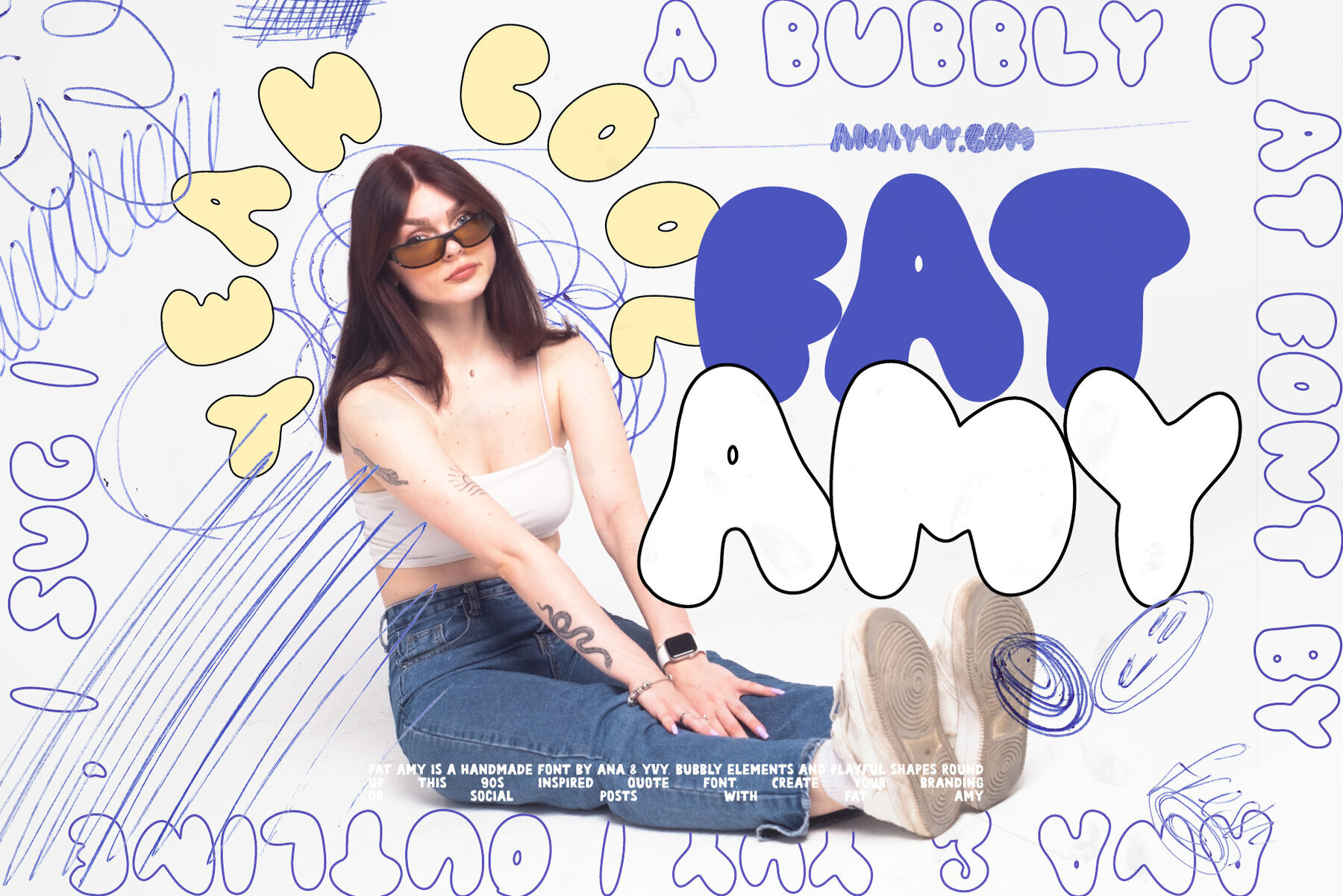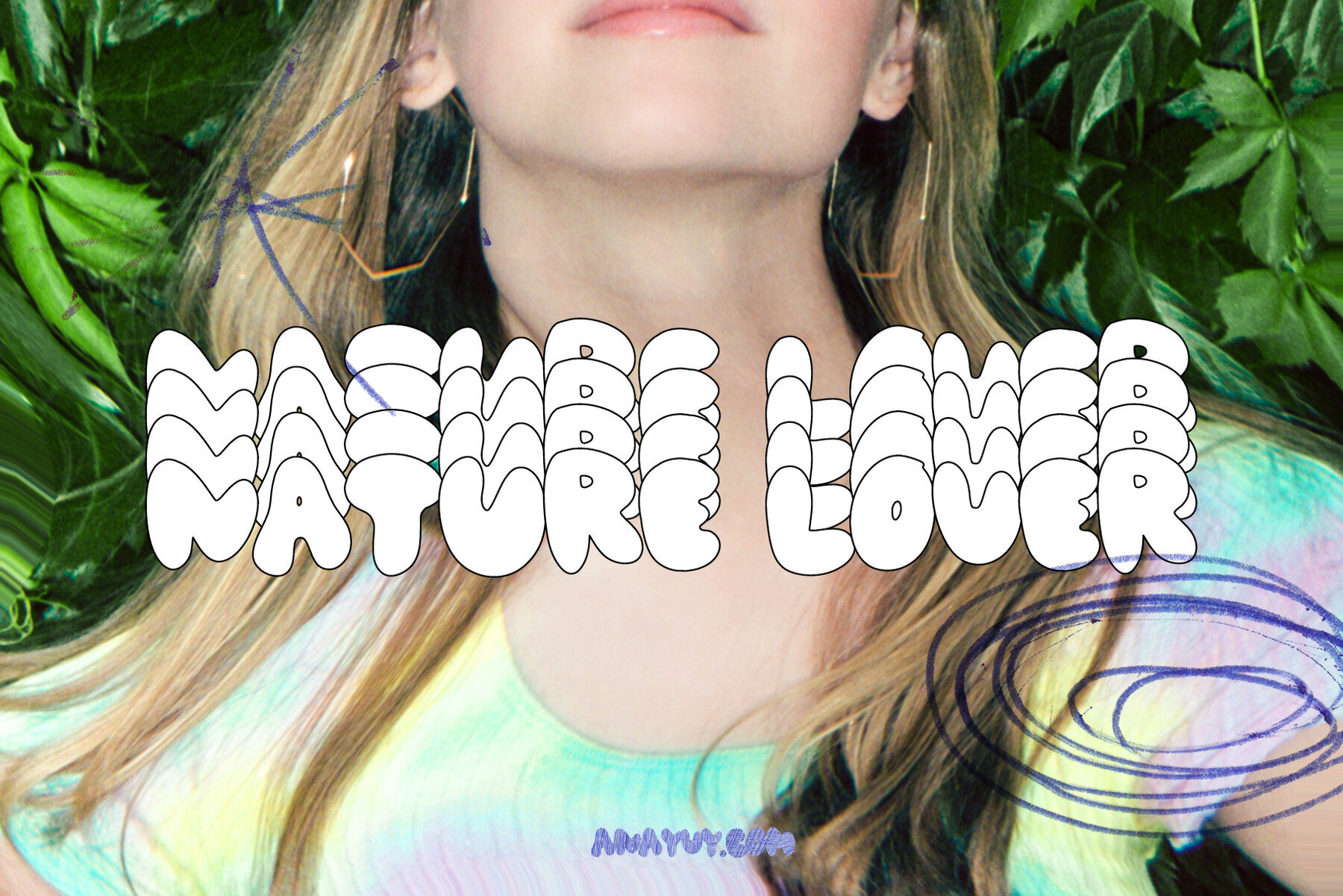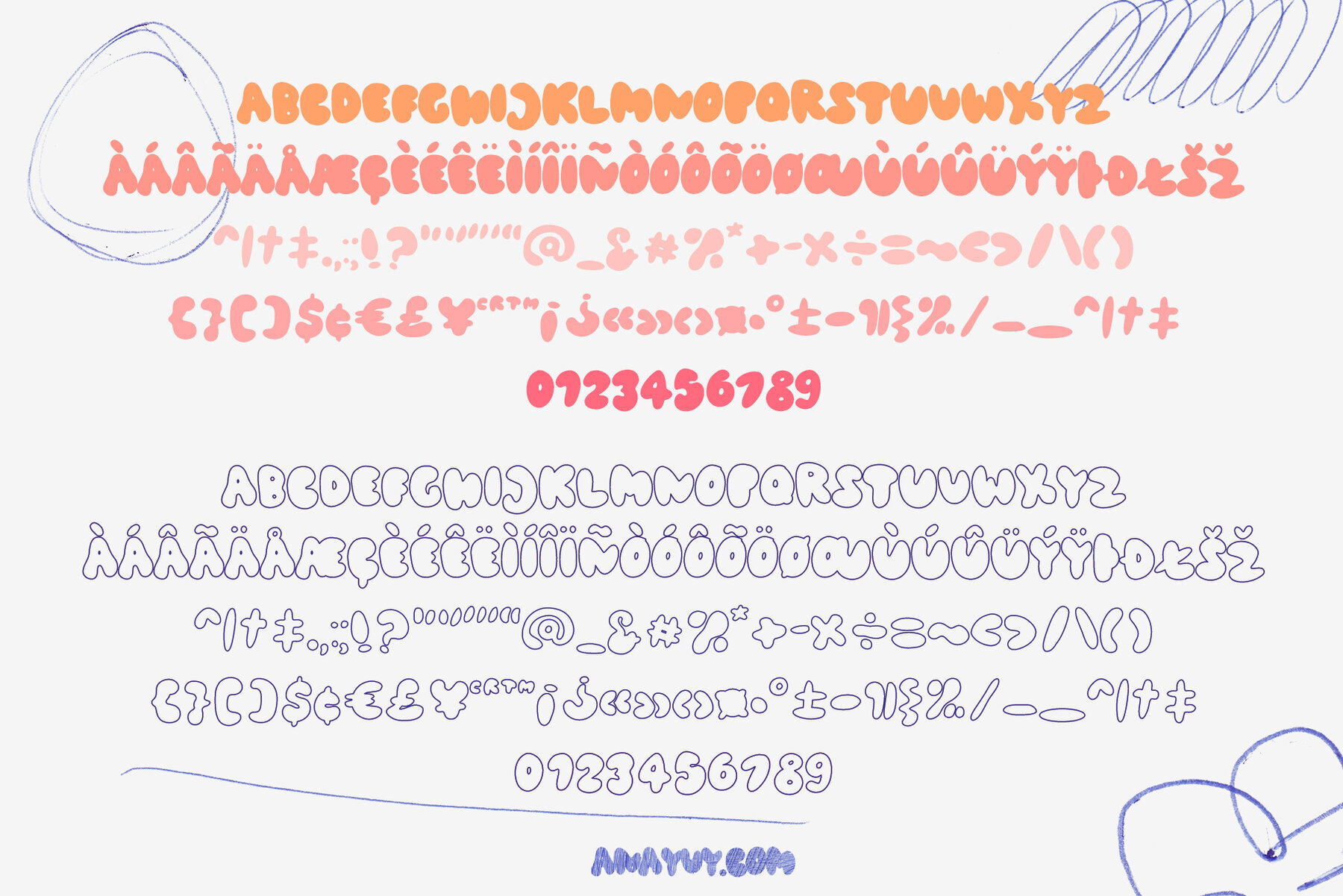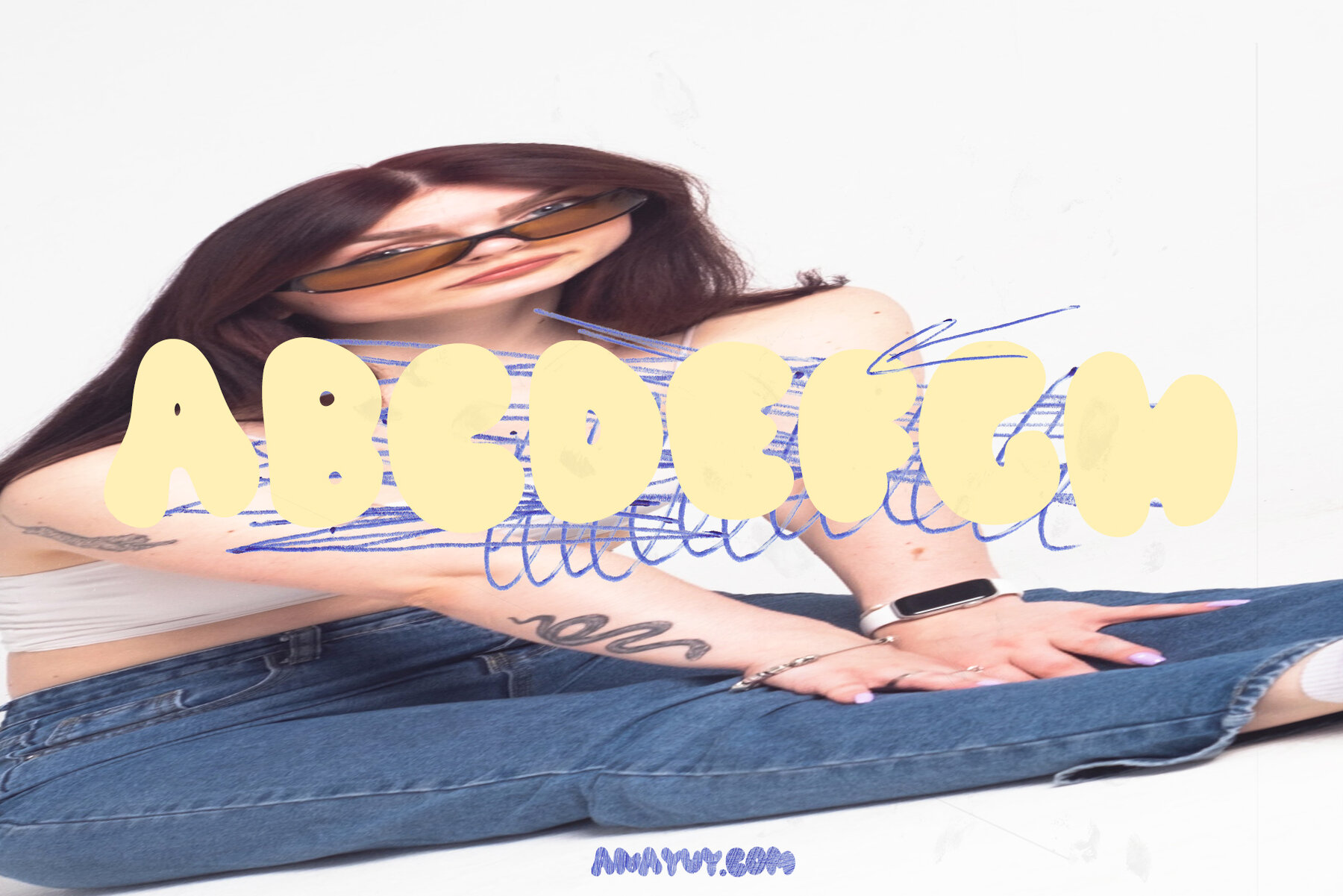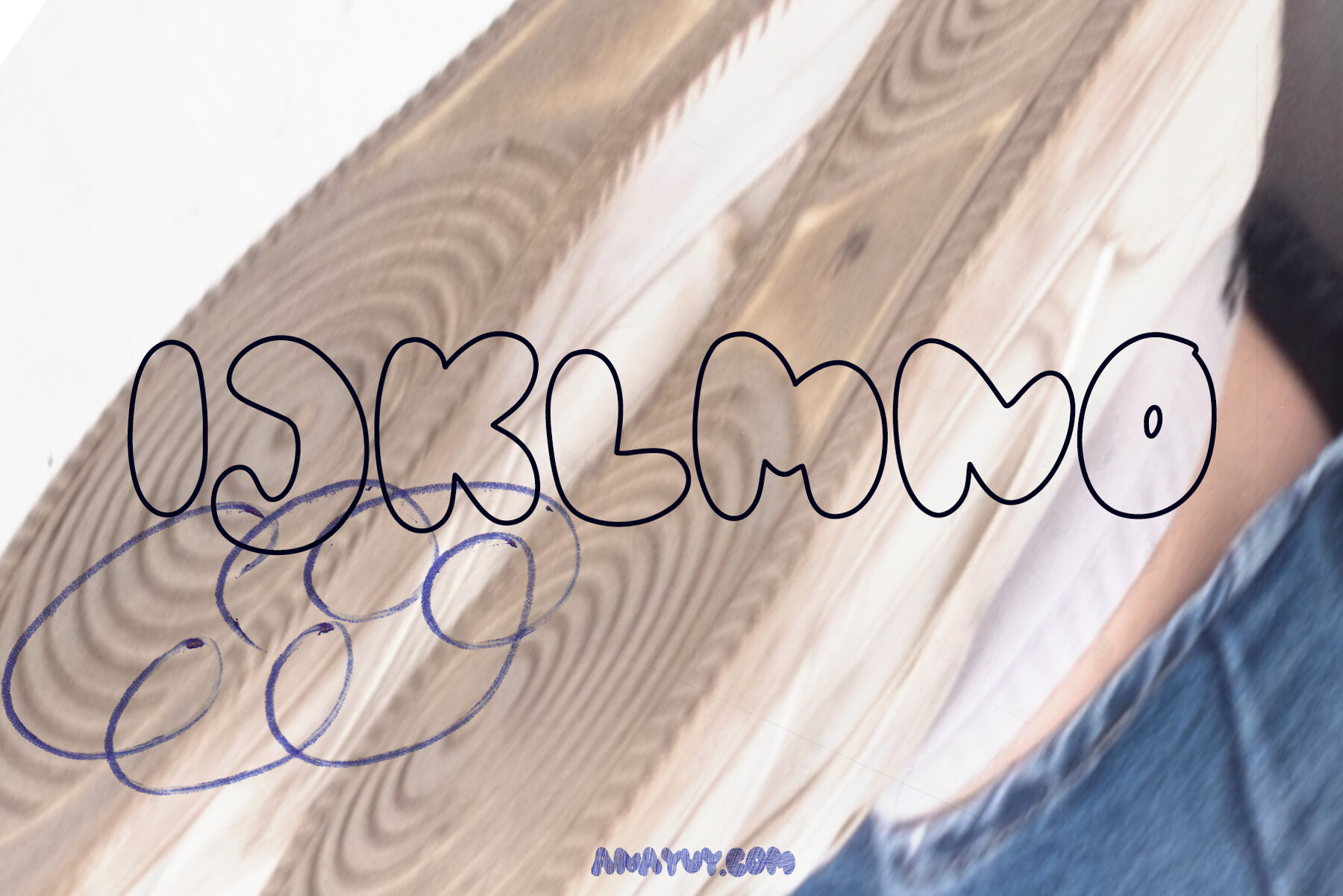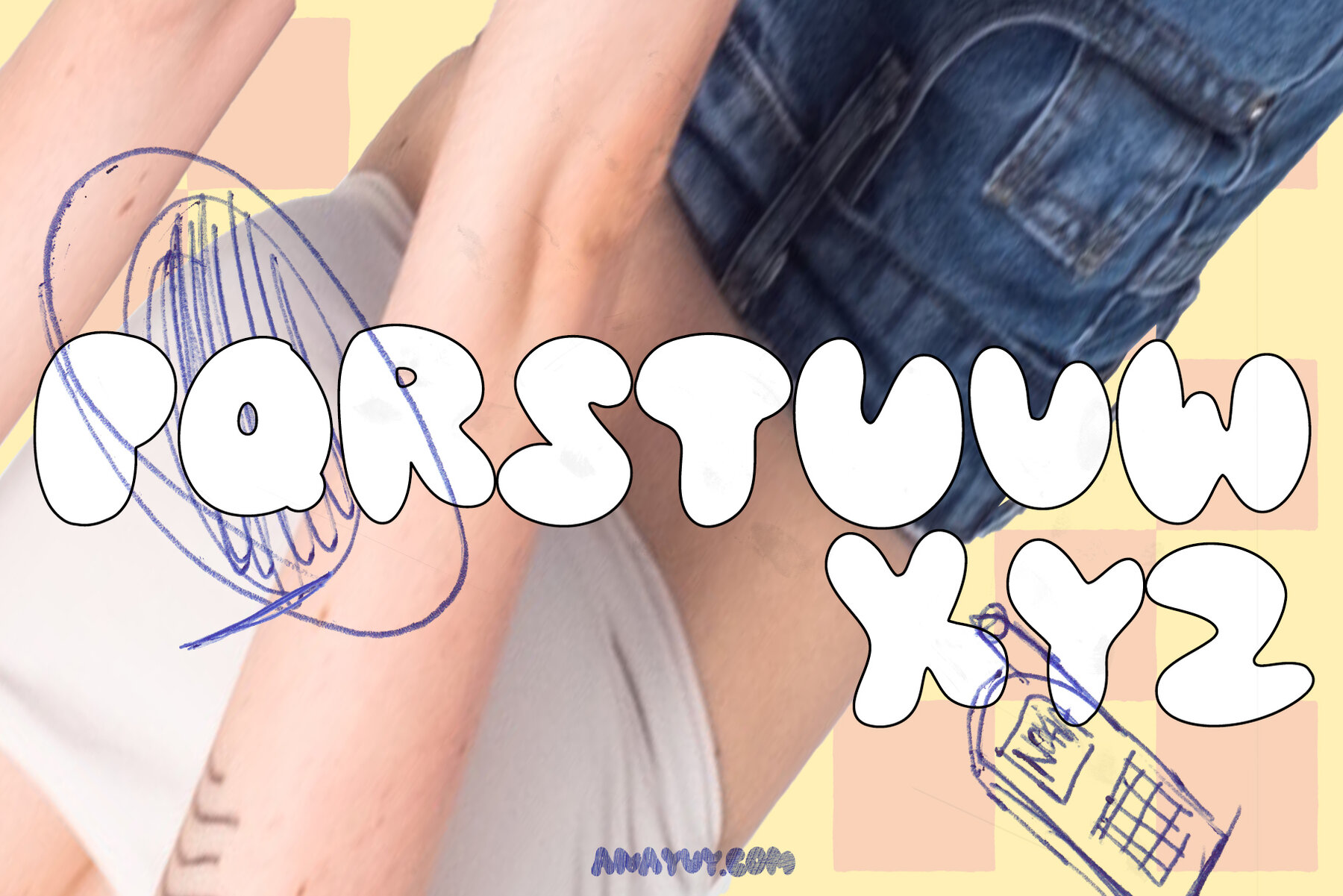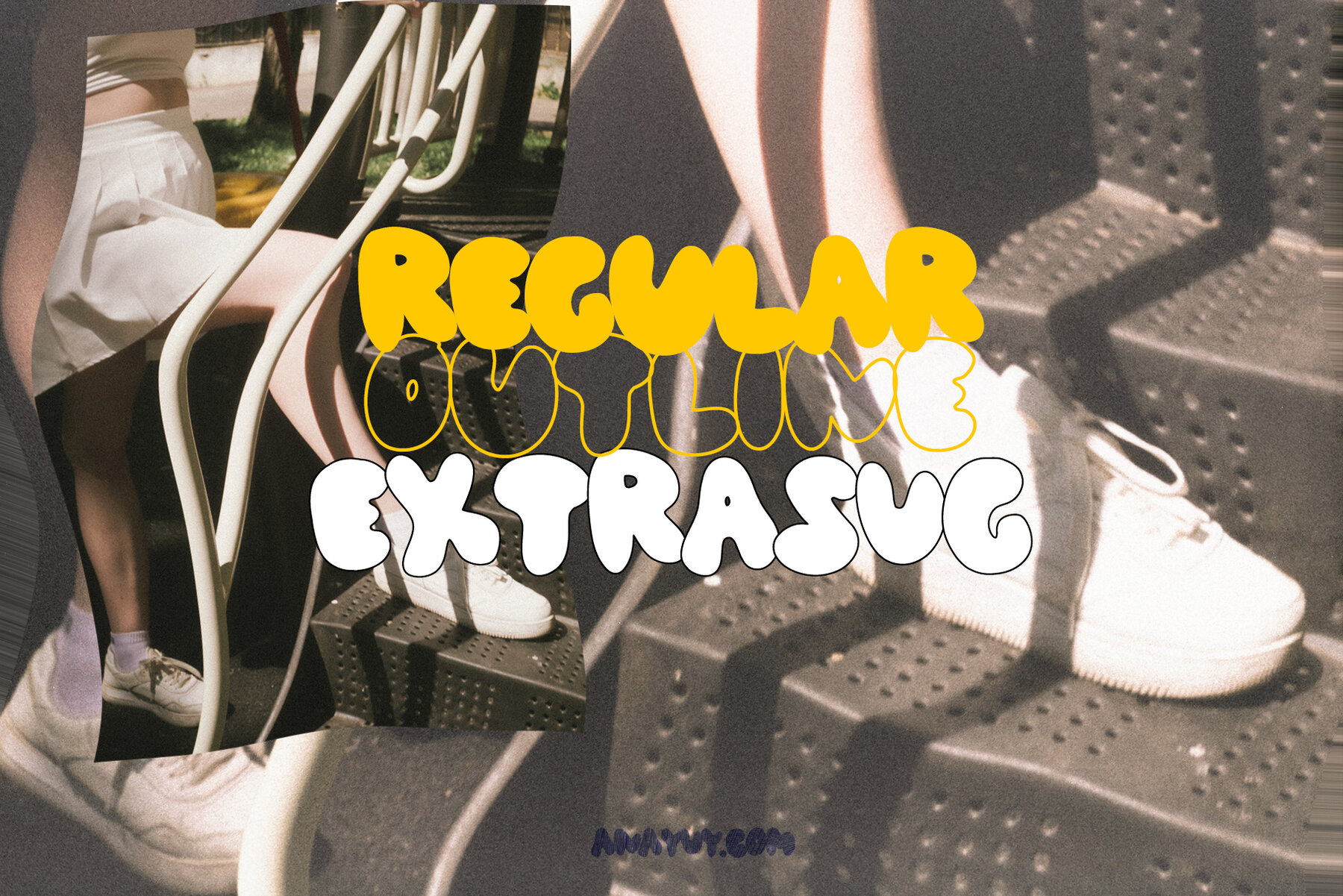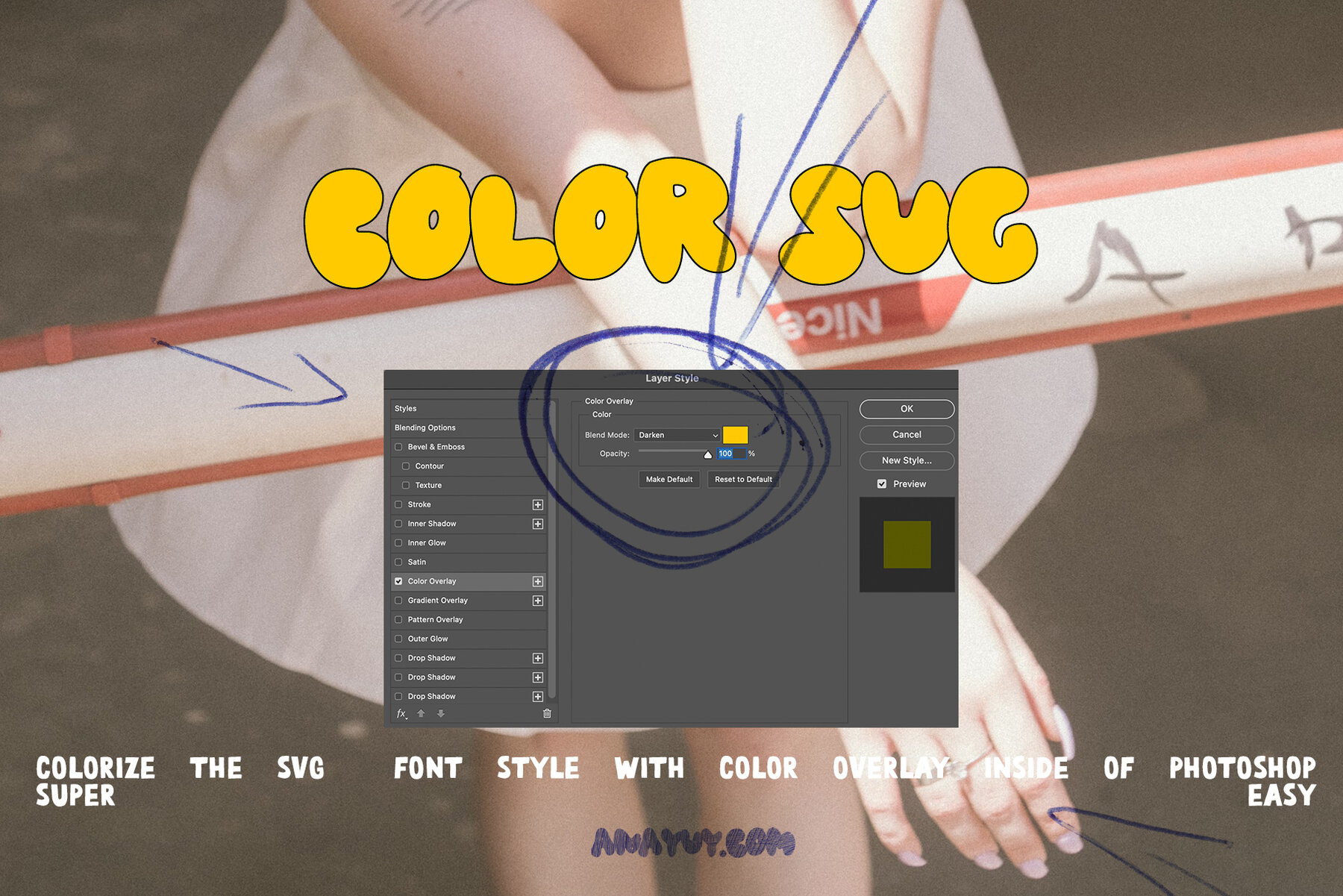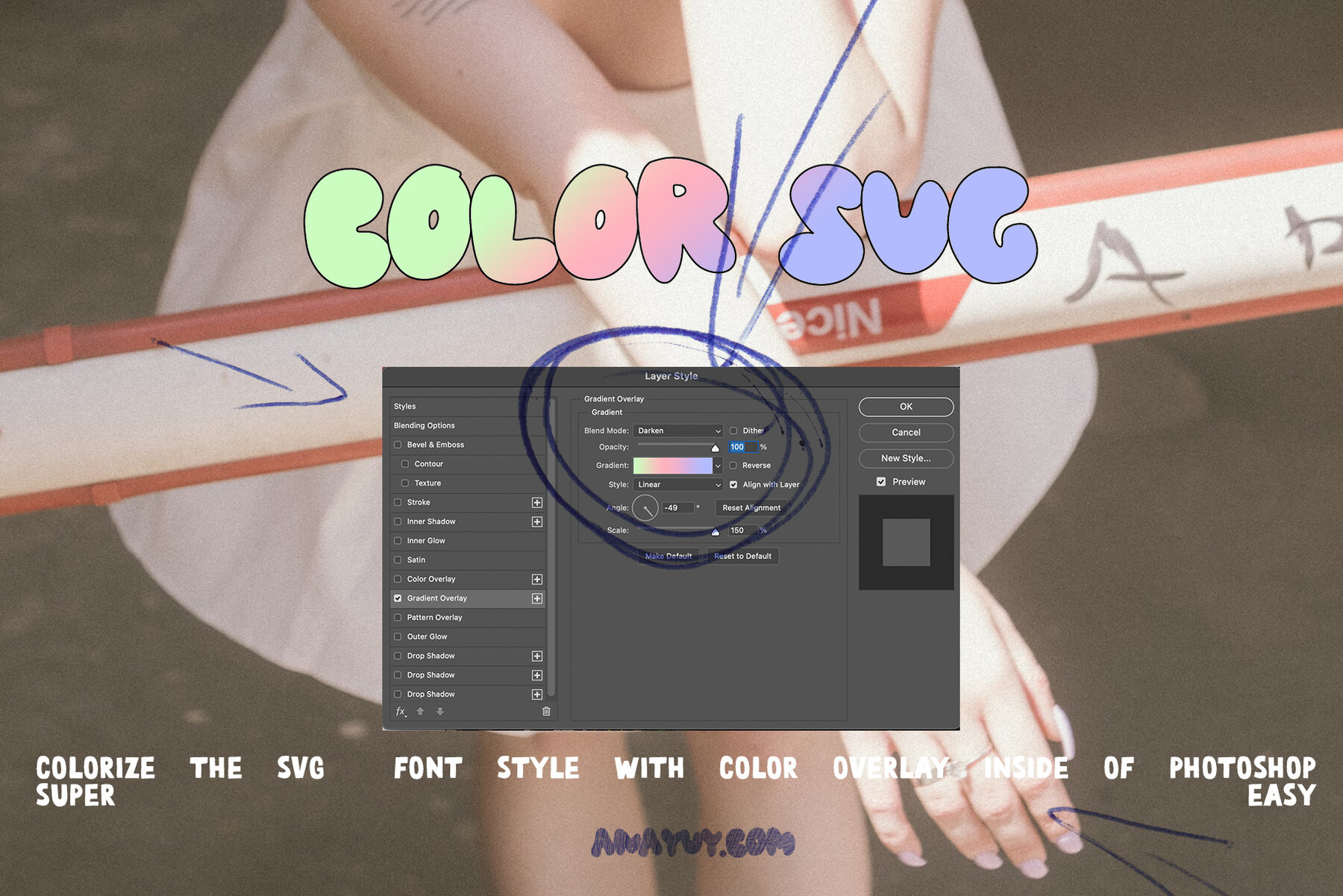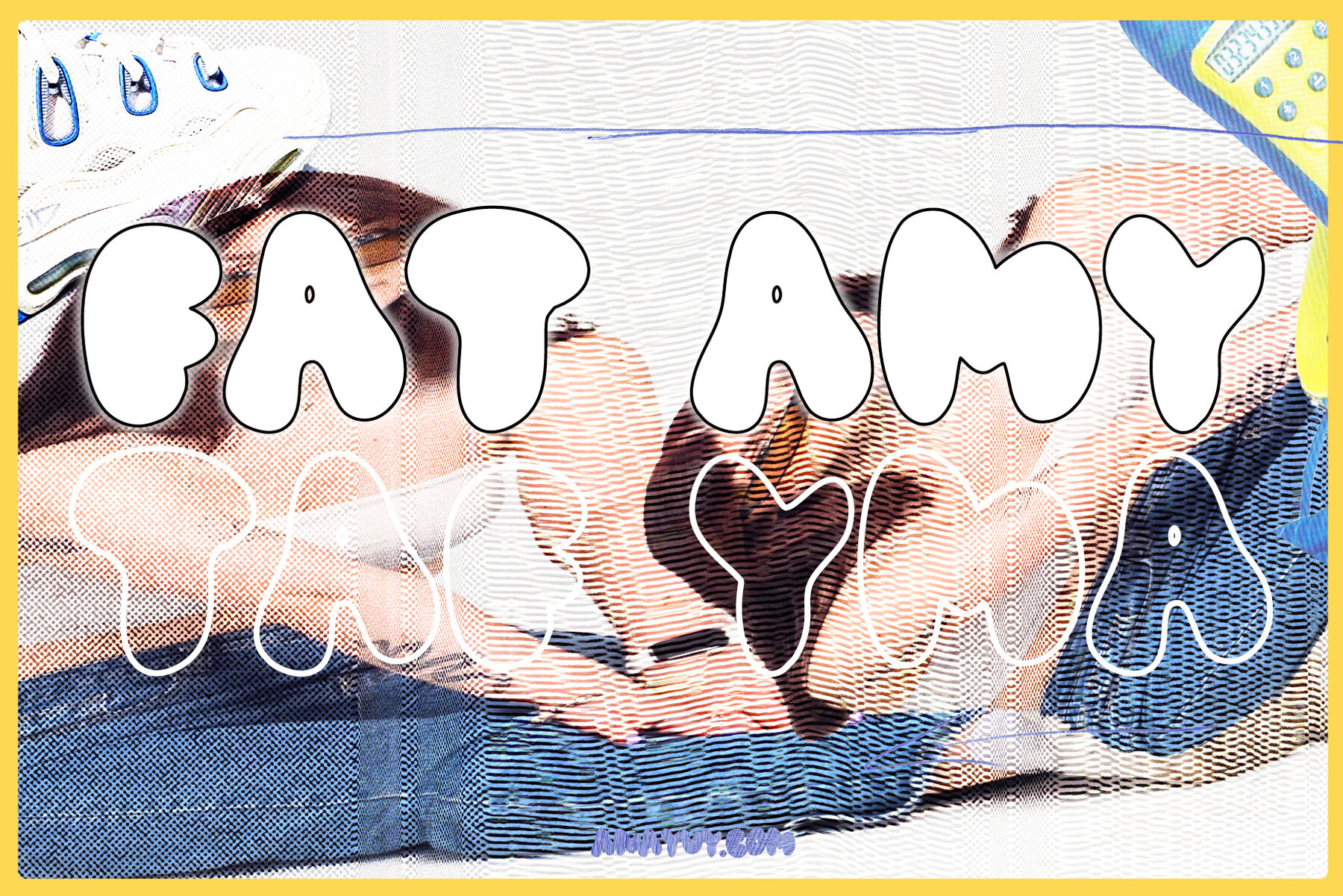
Fat Amy Font
Introducing Fat Amy, a captivating all-caps graffiti font brimming with bold energy. Perfect for projects requiring an urban, expressive touch, this font exudes charm with its bubbly characters.Fat Amy: Playful Graffiti All Caps Font